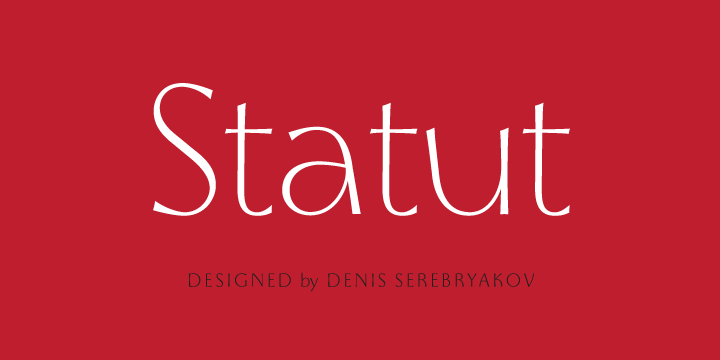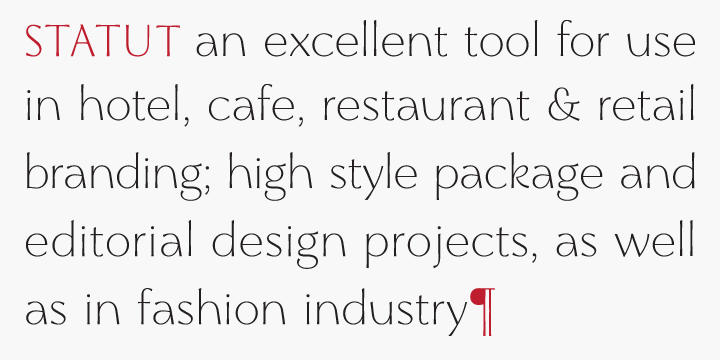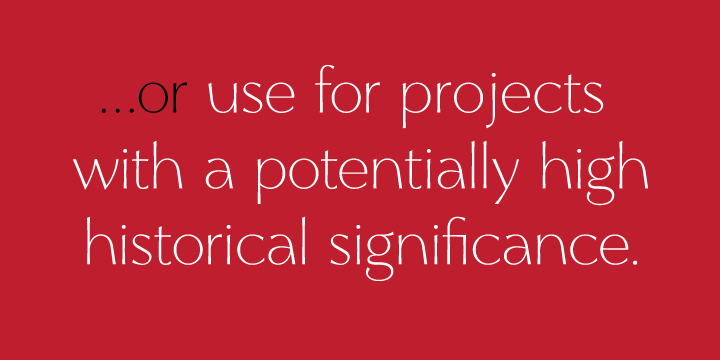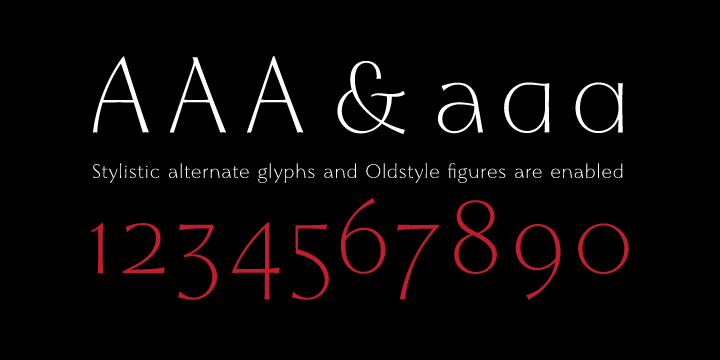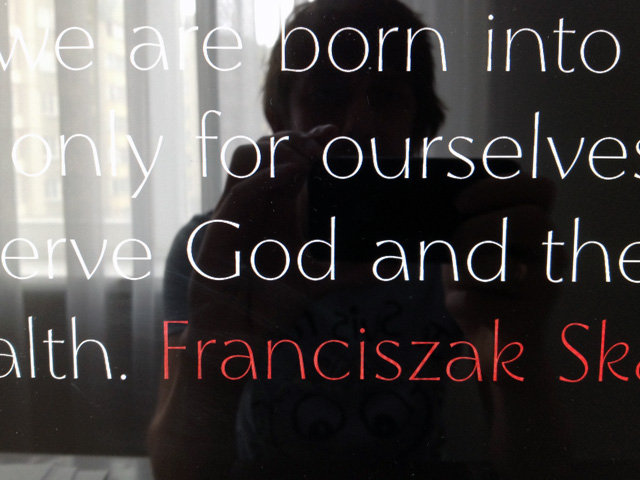
Statut is a ceremonial, elegant and highly readable display typeface with humanistic proportions based on Renaissance inscriptions.
This sophisticated typeface is excellent for a variety of uses, including branding of hotels, cafes, restaurants, packaging of premium-class food products, editorial design as well as for projects in fashion industry. Also Statut will fit within projects with a potentially high cultural and historical significance.
Statut typeface has been created under the influence of calligraphic works by Belarusian artist Pavel Semchenko. Works by Semchenko reveal the essence as well as unique characteristics of Belarusian writings in the slavic writing system.